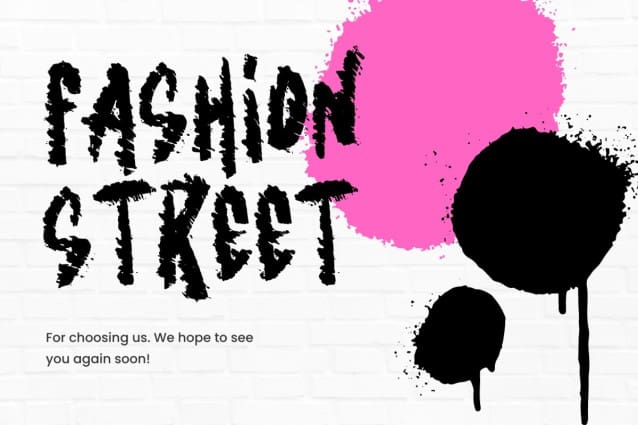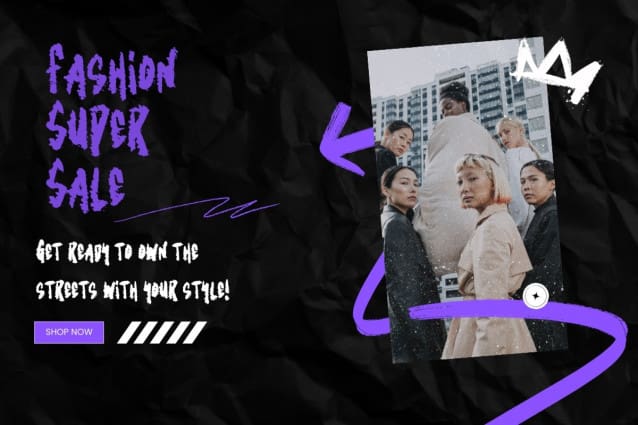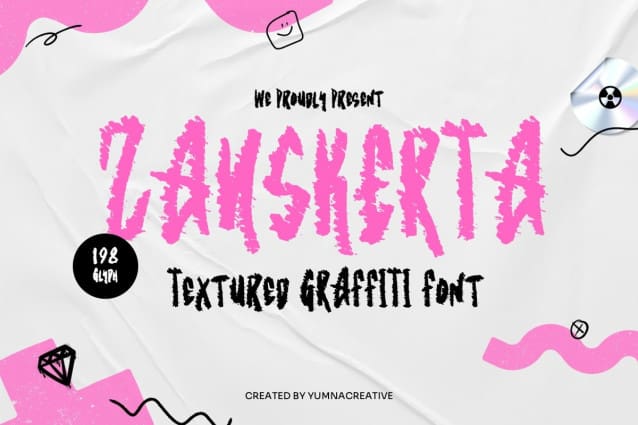
Zanskerta Textured Graffiti Font
Zanskerta Textured Graffiti Font is a bold, textured graffiti font that gives a street art vibe. Its rough, uneven strokes make it stand out, perfect for adding an edgy, urban feel to designs.